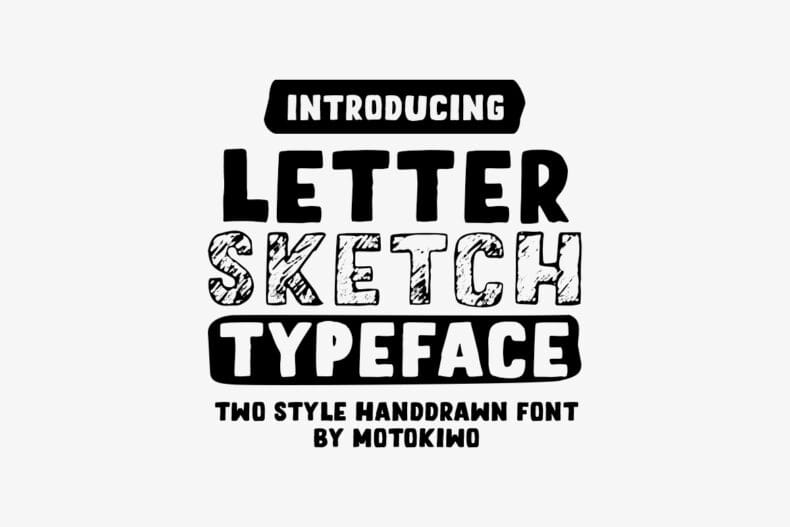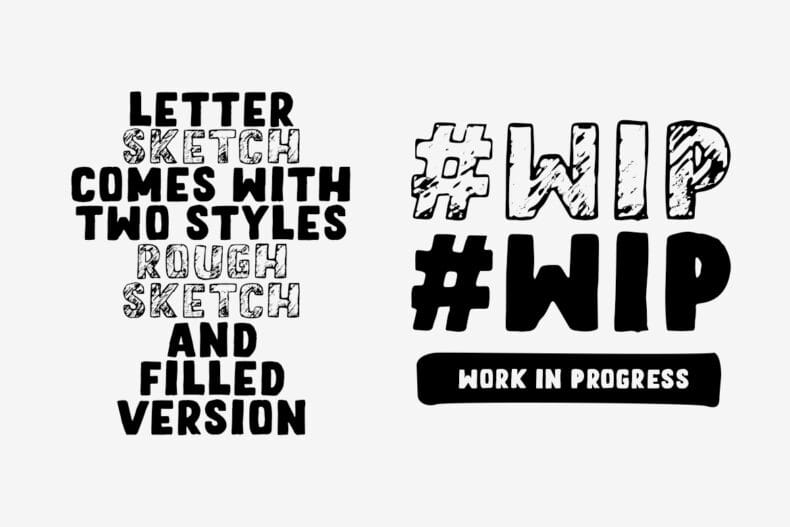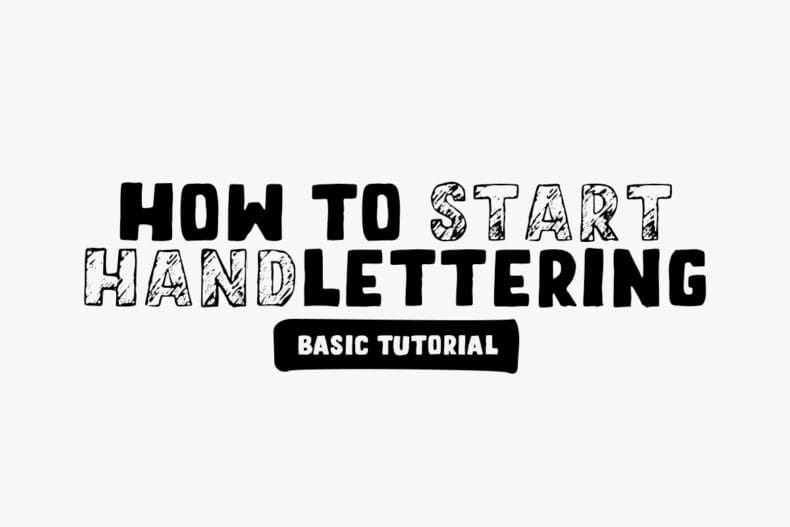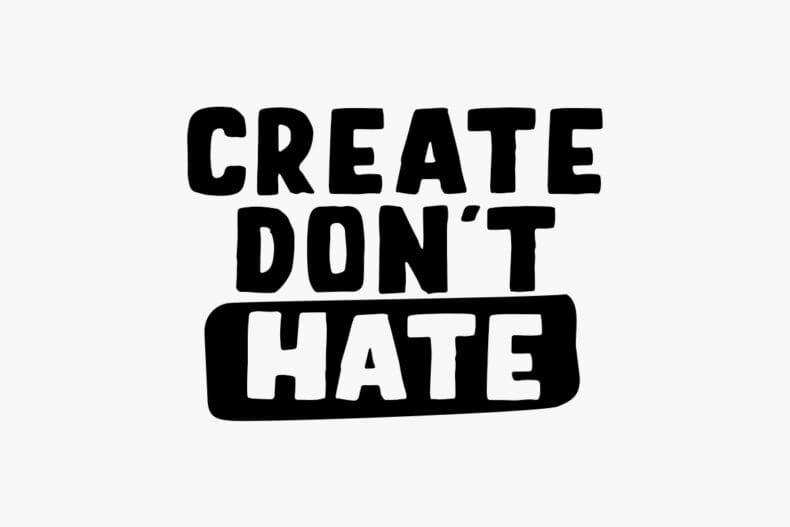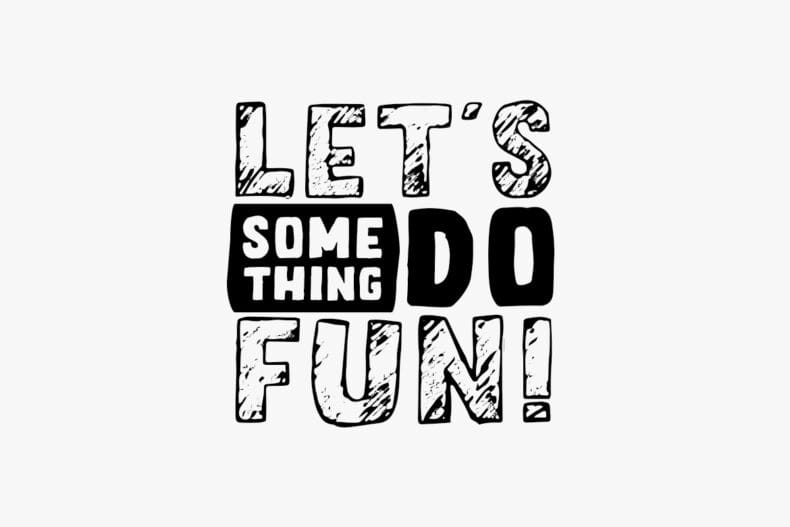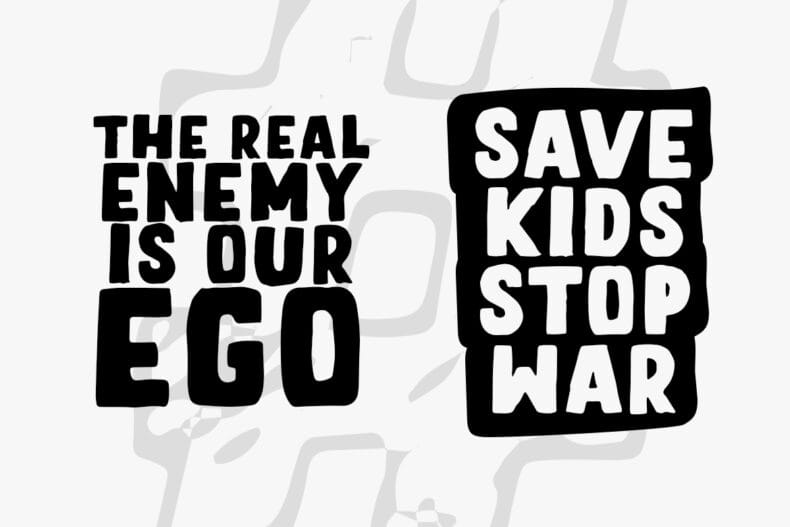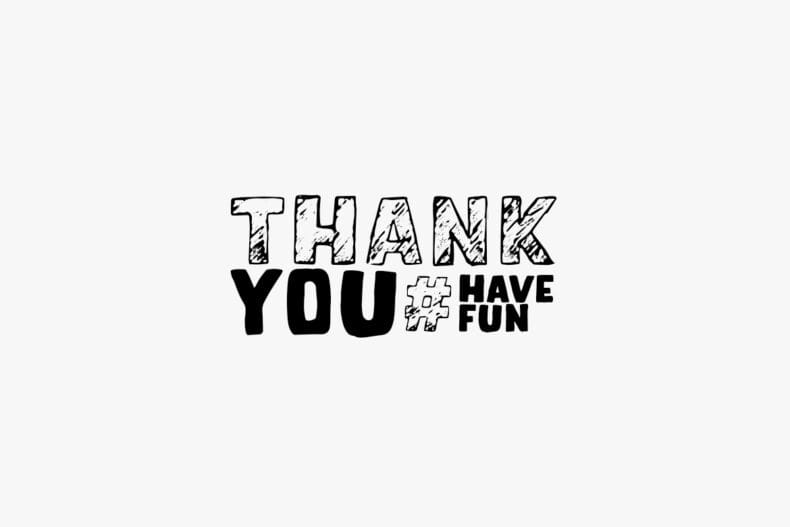
Letter Sketch Typeface
Letter Sketch is an all-caps hand-drawn font in two styles: a rough pencil-sketch Regular and a filled Bold. Explore it for informal titles and quotations.
The two versions of Letter Sketch let you choose between an outlined drawing feel and a more solid letterform. Try Regular for a sketchbook-inspired composition, or Bold when the same handwritten direction needs more visual weight.
Use the font for a tagline, headline, or short note beside illustrations. Preview your wording in both styles to see which treatment best supports the artwork.